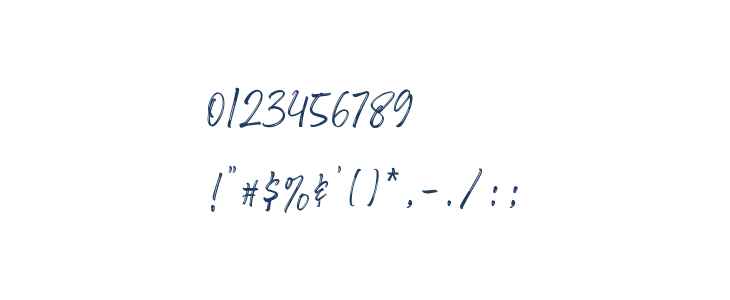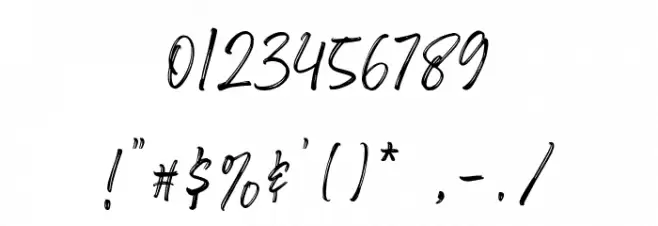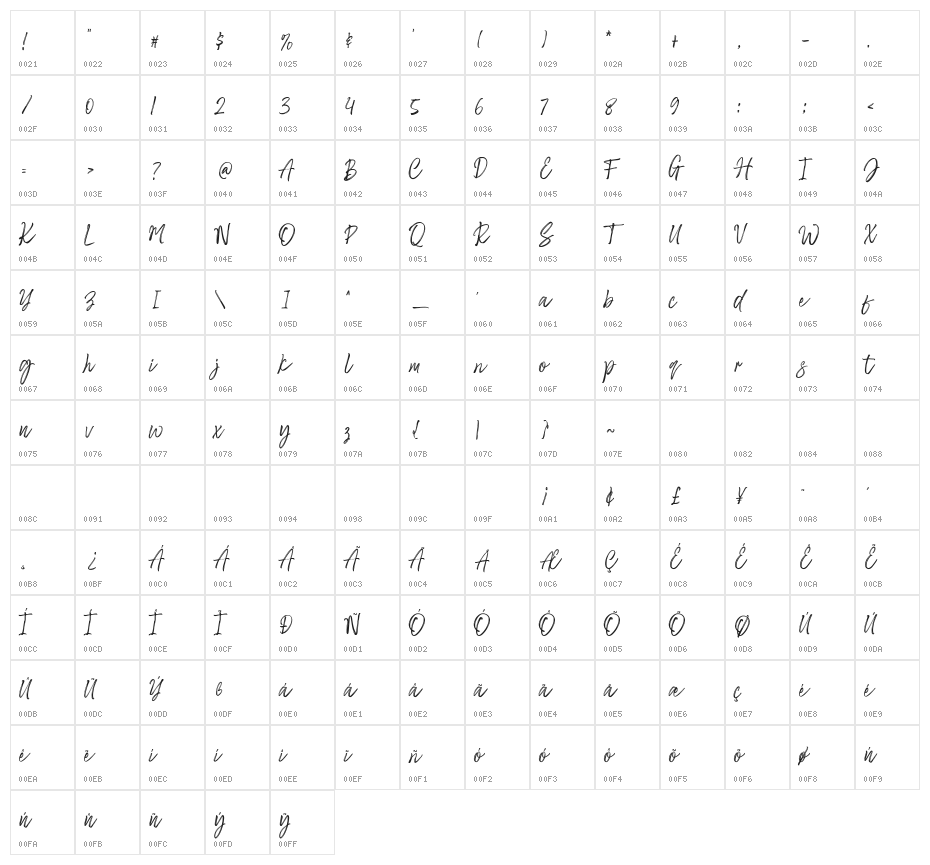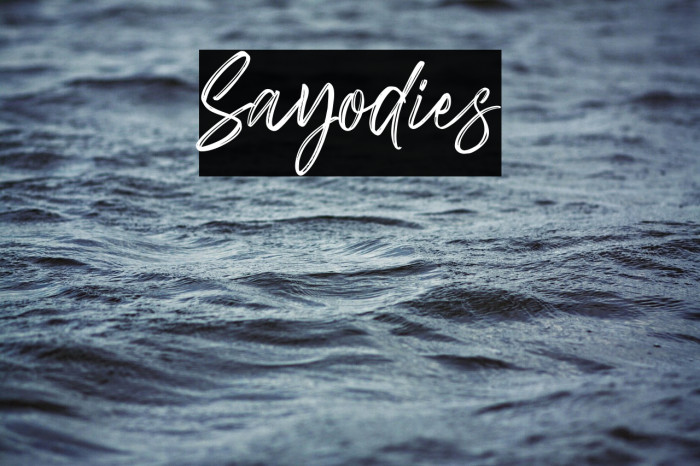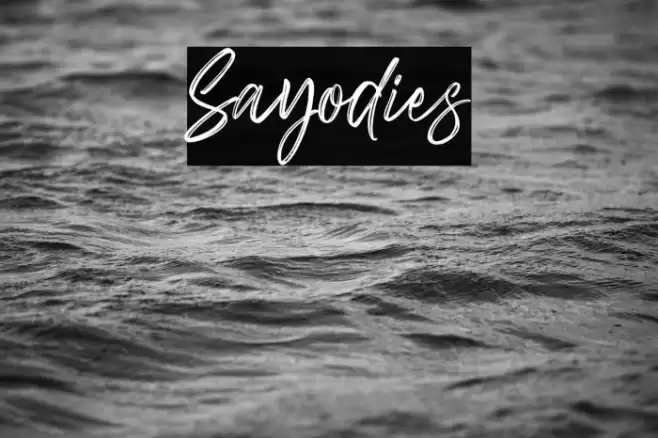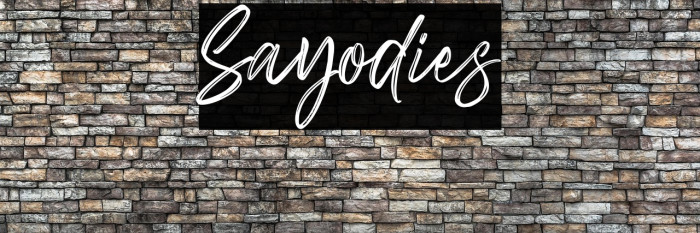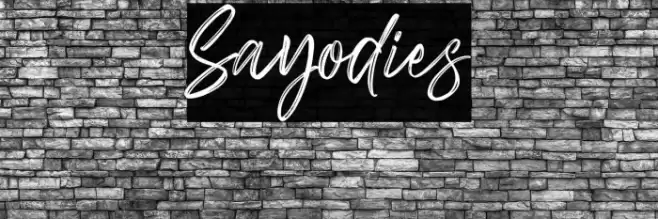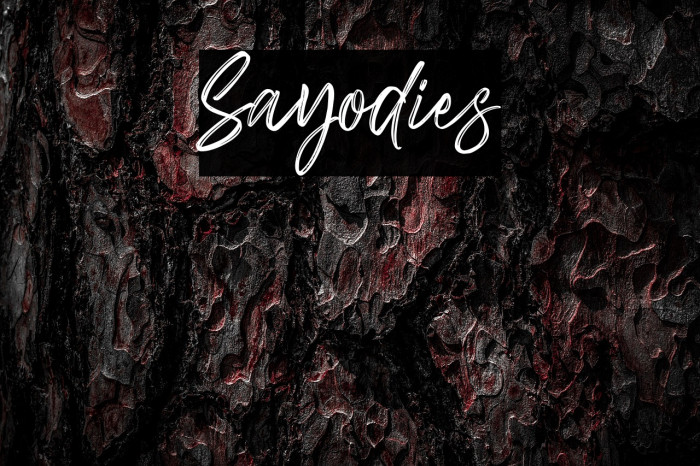
Sayodies Font
Sayodies Description
This font features a dynamic and fluid script style, characterized by its elegant and flowing letterforms. The strokes are smooth and connected, giving it a handwritten appearance that is both sophisticated and approachable. The uppercase letters are bold and slightly slanted, while the lowercase letters maintain a consistent flow with a slight cursive tilt. Numbers and special characters are designed to match the overall aesthetic, with a playful yet refined touch. The font's organic curves and loops add a sense of movement, making it ideal for creative and expressive projects.
| Proposed Projects | Ideal for wedding invitations, greeting cards, branding, and logo design. |